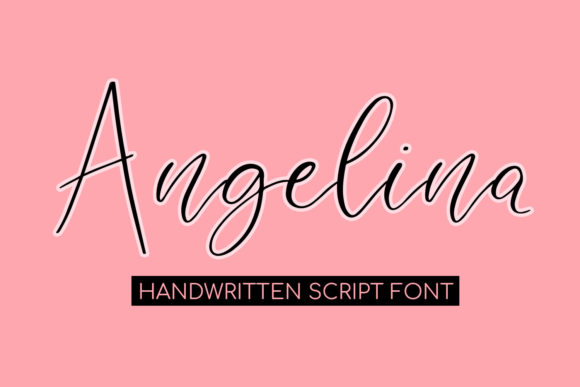
The Angelina Font: A Signature Script for Your DIY Projects
I still remember the frustration of working on a DIY project, pouring my heart and soul into it, only to realize that the font I was using wasn’t quite right. The letters looked stiff, and the overall design felt off. It was as if the font was fighting me, rather than complementing my creative vision. If you’re a designer, crafter, or creative hobbyist, I’m sure you’ve been there too. That’s why I’m excited to share with you the Angelina font, a beautiful script font that’s perfect for adding a personal touch to your projects.
A Personal Favorite: What I Love About Angelina
I’ve had the pleasure of working with the Angelina font, and I must say, it’s quickly become one of my go-to scripts. Here are a few things that I love about it:
• ✨ Signature feel: Angelina has a unique, signature quality to it that adds a touch of elegance to any project.
• ✅ Versatility: This font is perfect for a wide range of DIY projects, from crafting and scrapbooking to graphic design and digital art.
• 💫 Stylistic alternates: Angelina includes stylistic alternates for lower case letters, which allows you to cut the connector short and create a more customized look.
While I adore the Angelina font, there are a few quirks to consider:
• 🤔 Limited use in body text: While Angelina is perfect for headings and titles, it may not be the best choice for body text. The font is designed to be eye-catching, but it can be a bit challenging to read in large blocks.
• ⚠️ Pay attention to font size: As with any script font, it’s essential to pay attention to font size. Angelina looks best when used at larger sizes (around 24-36 points).
The Story Behind Angelina
The Angelina font was designed by a team of typographers who wanted to create a script font that was both elegant and approachable. Inspired by the classic scripts of the past, they aimed to create a font that would add a personal touch to any project. With its unique stylistic alternates and signature feel, Angelina is the perfect choice for designers, crafters, and creative hobbyists who want to add a touch of personality to their work.
Is the Angelina font suitable for body text? While the Angelina font is beautiful, it’s not ideal for body text. It’s best used for headings, titles, and other display text.